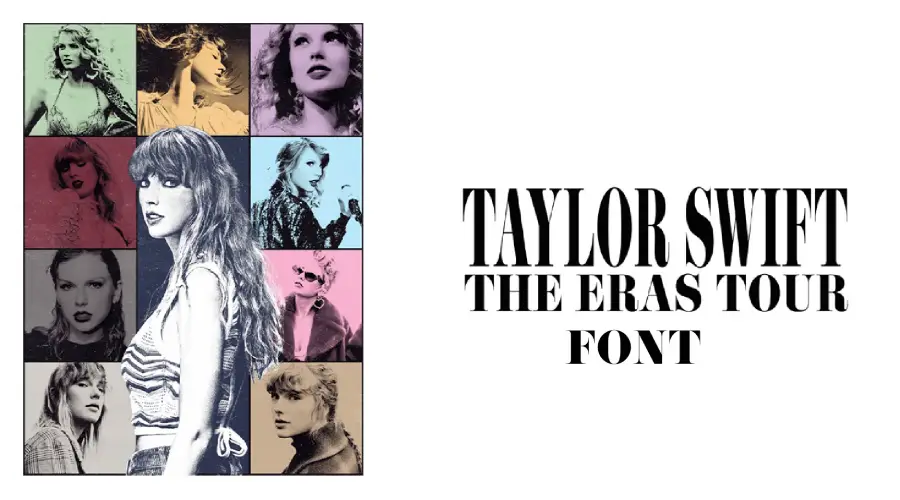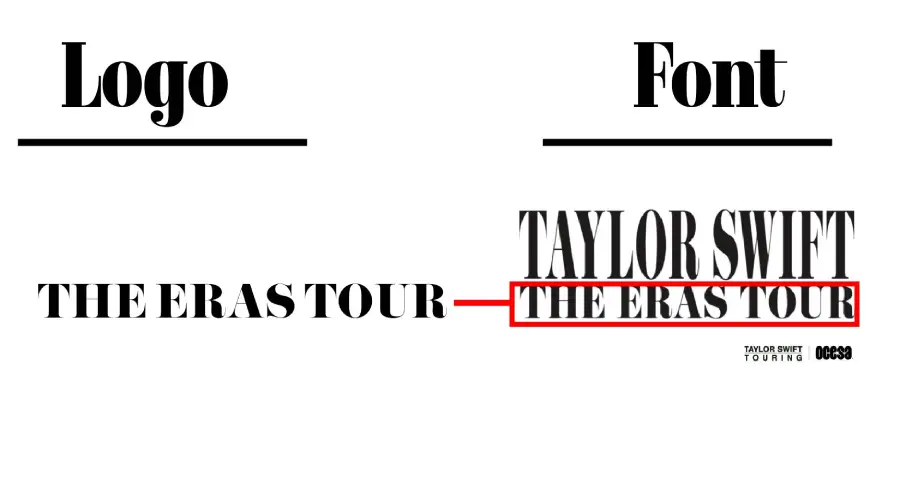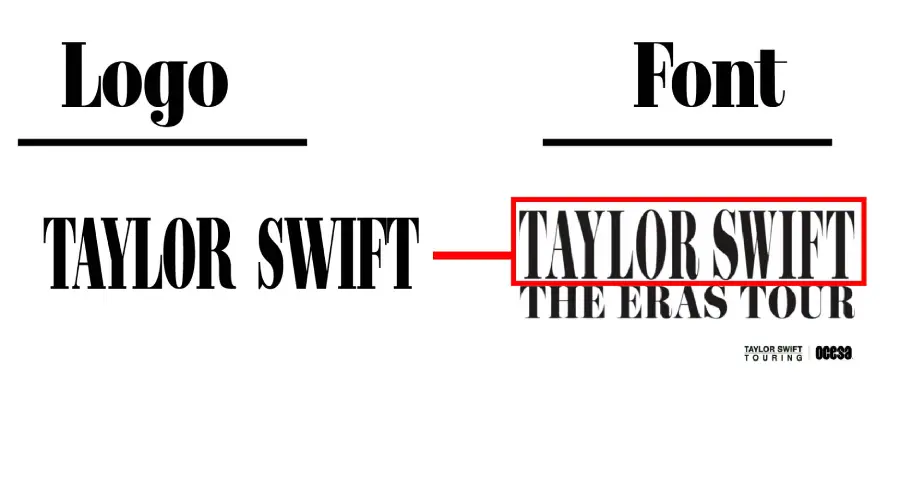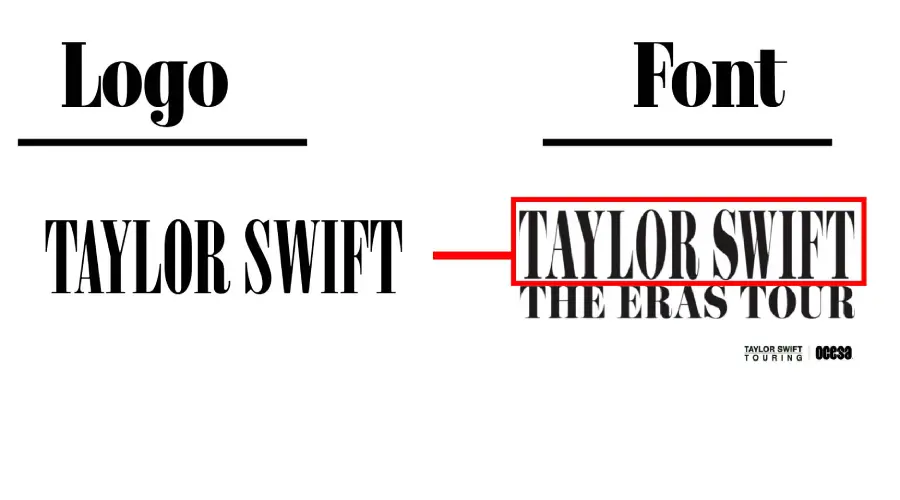
Taylor Swift Eras Tour Font
Taylor Swift Eras Tour font is a typeface used to create the Taylor Swift Eras Tour promotional poster and concert film logo. It is a combination of two fonts: Pistilli Roman and Rojal. But what is the Taylor Swift Eras Tour? Sit tight, and let us tell you about it and the fonts.
About Eras Tour
Taylor Swift’s Eras Tour is one of 2023’s most anticipated events. The Eras Tour is Swift’s second all-stadium tour and her most expansive tour yet, with 146 dates across five continents. It began on March 17, 2023, in Glendale, Arizona, and concluded on November 23, 2024, in Toronto, Canada. Swift has said that the Eras Tour is a “journey through all of her musical ‘eras.'” She has also described the tour as a “celebration of the fans,” thanking them for their support over the years.
The tour is in support of Swift’s tenth studio album, Midnights (2022), and celebrates all of her musical eras, from her self-titled debut album to her latest release. The show spans over three hours, with a set list of 44 songs divided into ten distinct acts that portray the album conceptually.
She also released a concert film to coincide with her tour. Sam Wrench directed it. The film documents the Eras Tour, Swift’s 2023–2024 concert tour in support of her discography. The film and tour received unanimous acclaim from critics and fans and broke many records for ticket sales and revenue.
Font Used in Taylor Swift Eras Tour
Taylor Swift Eras Tour Logo vs Pistilli Romani Font Similarity Example
For the “The Eras Tour” part, the font is Pistilli Roman. It is a classic and elegant serif font designed by Herbert Thannhaeuser in 1958.
Taylor Swift Eras Tour Logo vs Rojal Font Similarity Example
For the name “Taylor Swift,” the font is probably a customized version of Rojal. It is a modern and geometric serif font designed by Nils Thomsen in 2012.
Taylor Swift Eras Tour Logo vs Sardonyx Font Similarity Example
If you want to use a similar font to Rojal for free, we have a free alternative font. It is the Sardonyx font that looks similar to Rojal.
The Taylor Swift Eras Tour font is a combination of two fonts: Pistilli Roman and Rojal (or Sardonyx). These fonts are unique and have a memorable design that is perfect for celebrating all of Taylor’s eras. You can use these fonts for your projects by downloading them or using our Taylor Swift Eras Tour font generator.